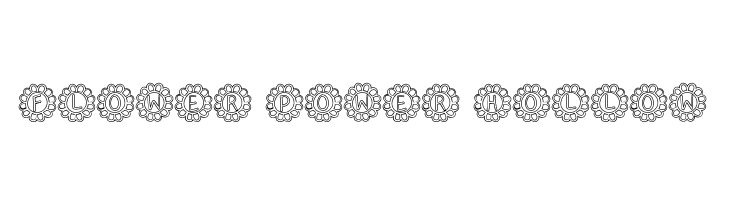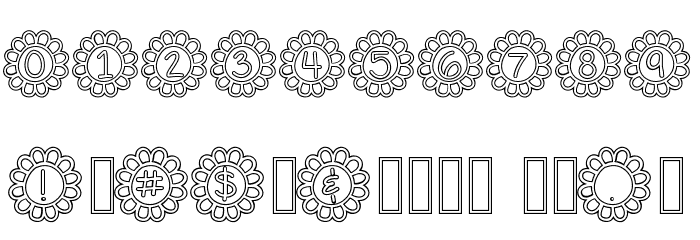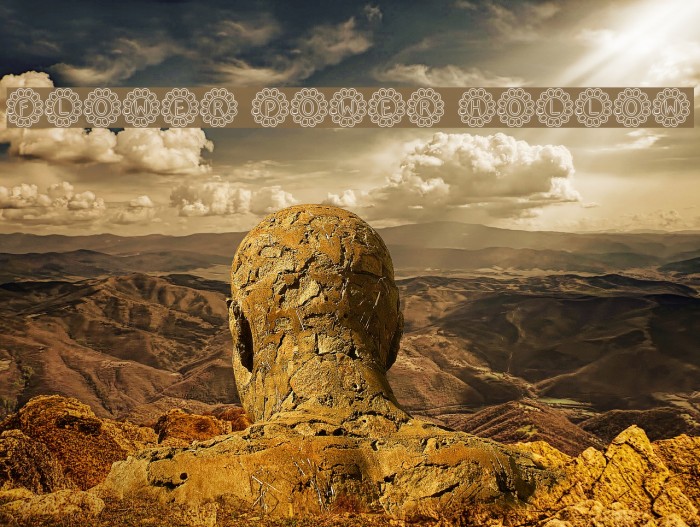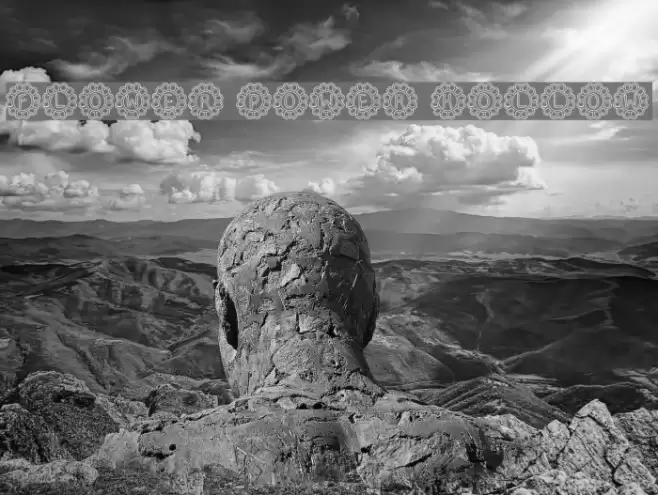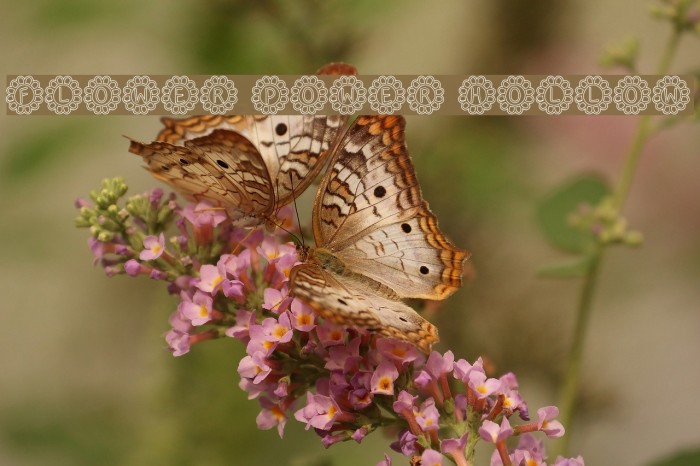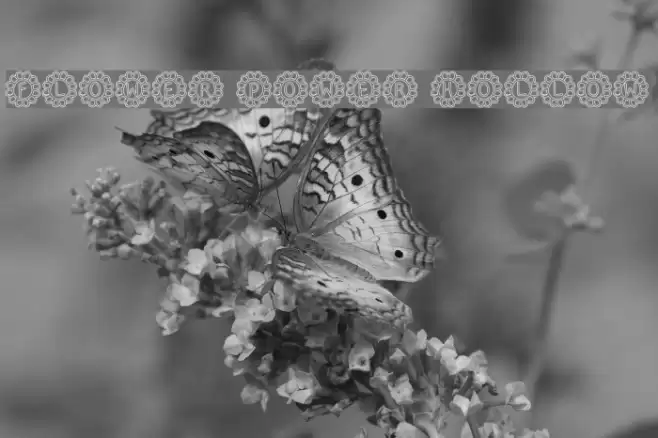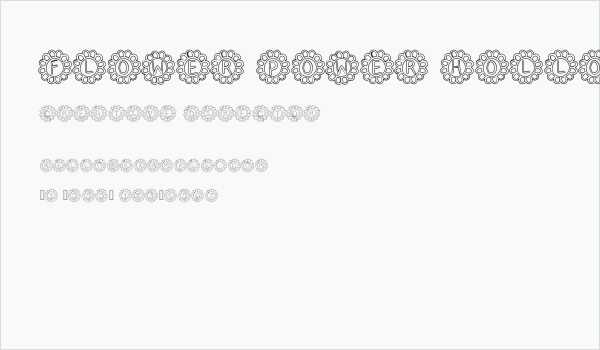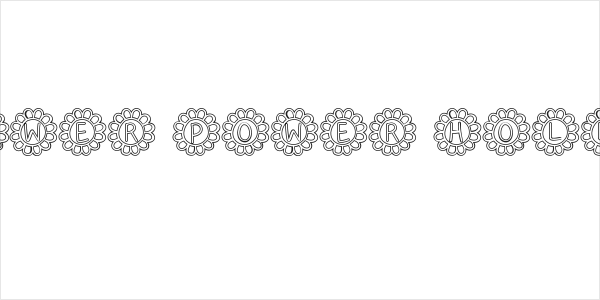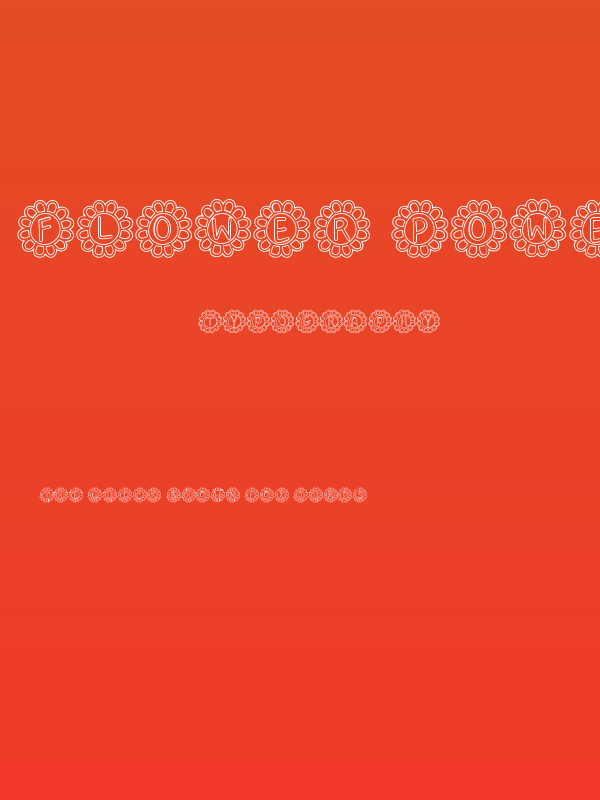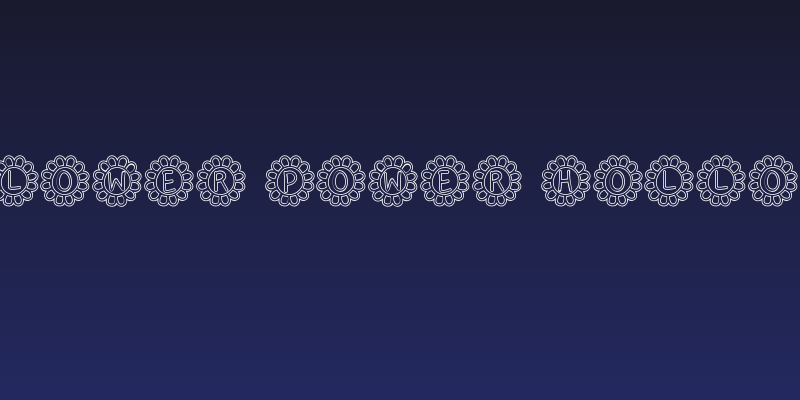
Flower Power Hollow Font
Flower Power Hollow Description
This playful and decorative font features letters and numbers encased in whimsical flower shapes, each petal forming a circular pattern around the hollow characters. The design evokes a sense of fun and creativity, reminiscent of retro and bohemian styles. The hollow nature of the characters allows for a unique visual effect, making it ideal for projects that require a touch of nostalgia and artistic flair. The font includes a full set of uppercase letters, numbers, and a selection of special characters, all maintaining the consistent floral theme. Its intricate design is perfect for capturing attention and adding a distinctive personality to any text.
| Proposed Projects | Perfect for greeting cards, posters, children's book covers, and any project needing a playful, retro touch. |